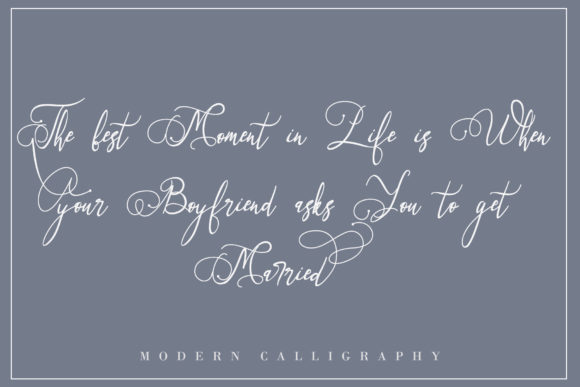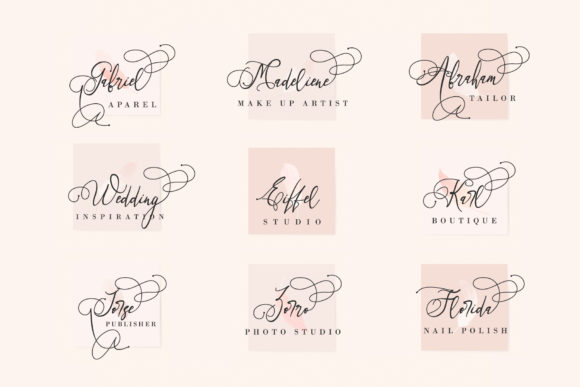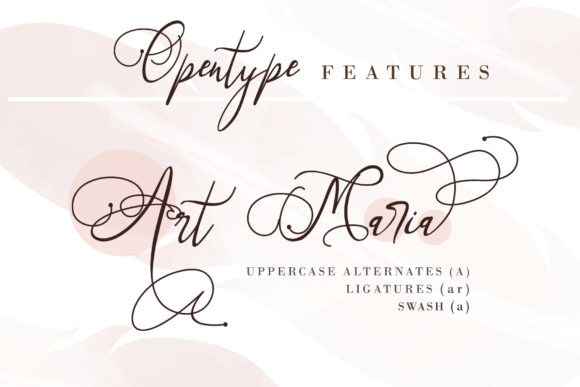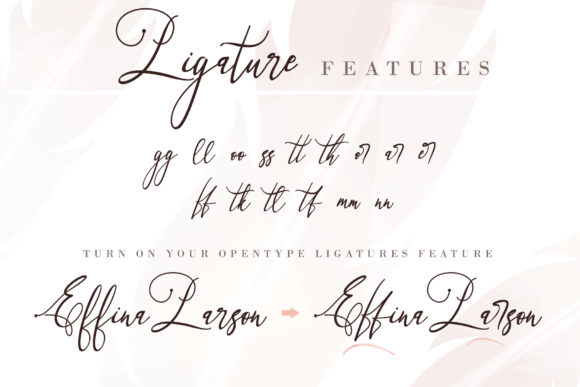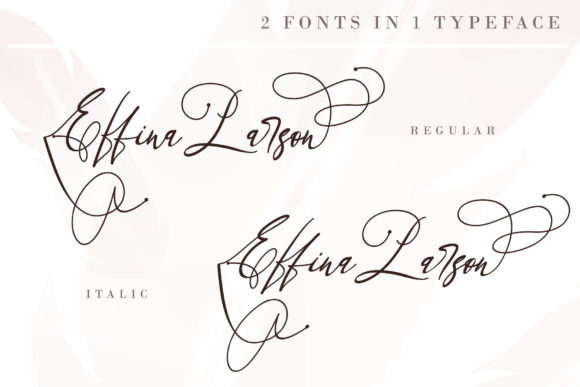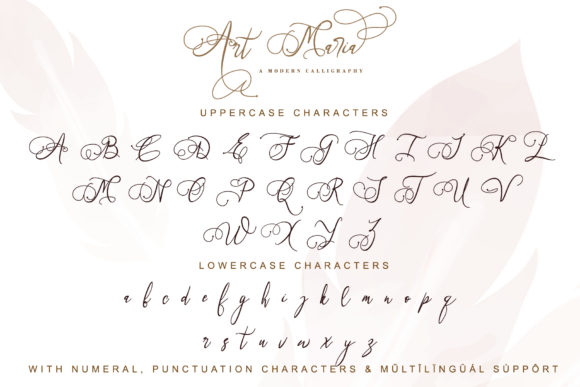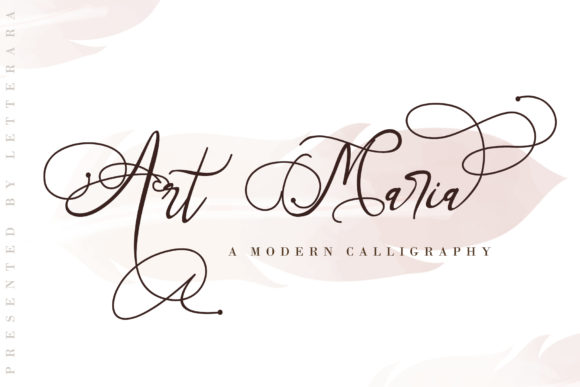
Discover the Charm of Art Maria Font: A Sweet and Bold Script for Crafters
Are you a designer or crafter looking for a font that can add a touch of elegance and playfulness to your projects? Look no further than Art Maria Font, a sweet and bold script that is sure to capture your heart. With its incredible swashes and lovely charm, Art Maria is the perfect crafting font for anyone who wants to create beautiful and unique designs.
The Characteristics of Art Maria Font
Art Maria Font is a script font that boasts a unique blend of sweetness and boldness. Its flowing lines and curves give it a feminine and elegant feel, making it perfect for projects that require a touch of sophistication. The font comes with an array of swashes that can be used to add a personal touch to your designs. Whether you’re creating a handmade card, a scrapbook page, or a DIY project, Art Maria Font is sure to make it stand out.
What Makes Art Maria Font So Special?
So, what sets Art Maria Font apart from other fonts? Here are a few features that make it a standout:
• Sweet and Bold: Art Maria Font has a unique balance of sweetness and boldness that makes it perfect for a wide range of projects.
• Incredible Swashes: The font comes with an array of swashes that can be used to add a personal touch to your designs.
• Lovely Charm: Art Maria Font has a charming and elegant feel that makes it perfect for projects that require a touch of sophistication.
• Crafting Friendly: The font is designed specifically with crafters in mind, making it perfect for handmade cards, scrapbook pages, and DIY projects.
How to Use Art Maria Font in Your Projects
Art Maria Font is a versatile font that can be used in a wide range of projects. Here are a few ideas to get you started:
• Handmade Cards: Use Art Maria Font to create beautiful and unique handmade cards for special occasions.
• Scrapbook Pages: Add a touch of elegance to your scrapbook pages with Art Maria Font.
• DIY Projects: Use Art Maria Font to add a personal touch to your DIY projects, such as signs, banners, and decorations.
• Digital Designs: Art Maria Font can also be used in digital designs, such as social media graphics, blog posts, and website headers.
Tips for Getting the Most Out of Art Maria Font
Here are a few tips for getting the most out of Art Maria Font:
• Experiment with Swashes: Don’t be afraid to experiment with the swashes that come with Art Maria Font. They can add a unique touch to your designs.
• Mix and Match: Try mixing and matching Art Maria Font with other fonts to create a unique look.
• Use it Sparingly: Art Maria Font is a bold font, so use it sparingly to avoid overwhelming your design.
Art Maria Font is a sweet and bold script that is perfect for crafters and designers who want to add a touch of elegance and playfulness to their projects. With its incredible swashes and lovely charm, Art Maria Font is sure to become a favorite in your font collection. Whether you’re creating handmade cards, scrapbook pages, or DIY projects, Art Maria Font is the perfect choice.